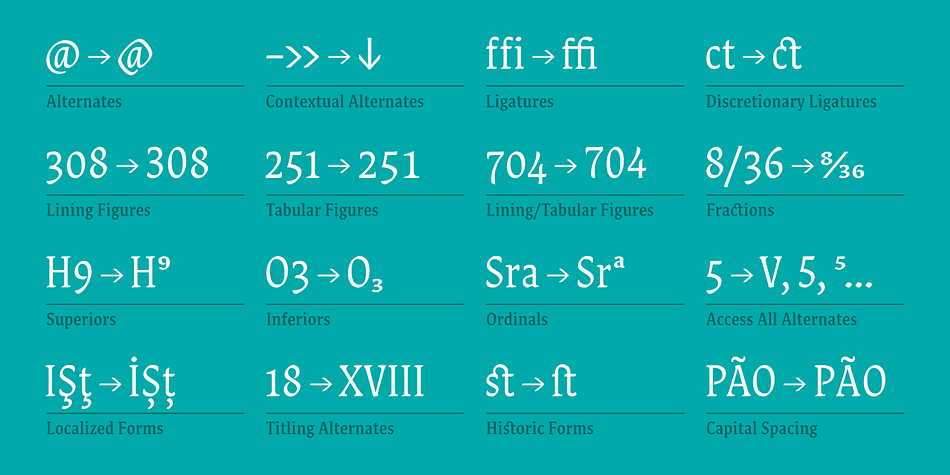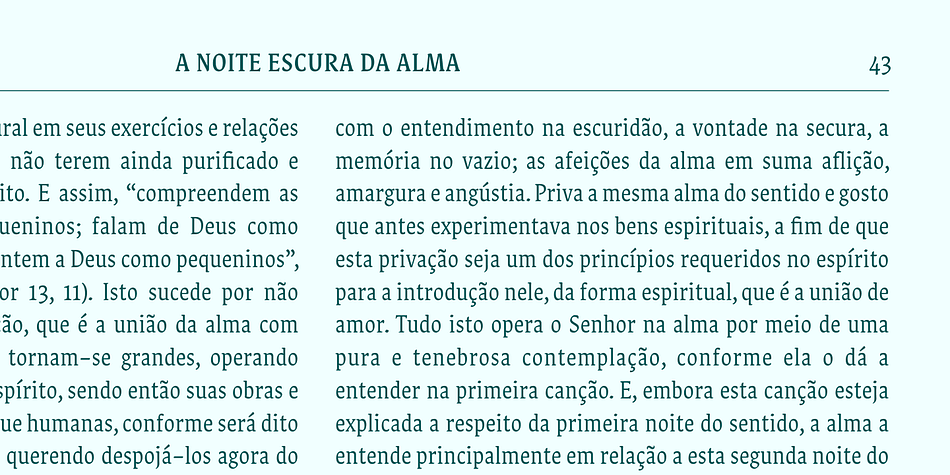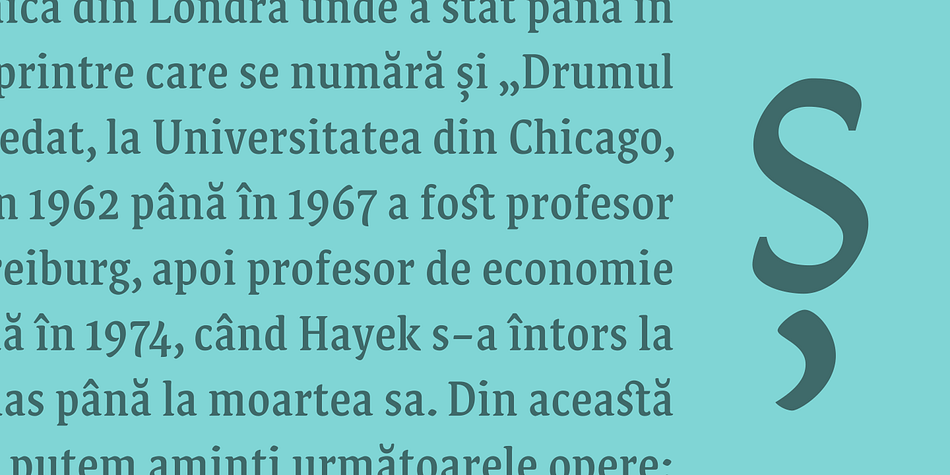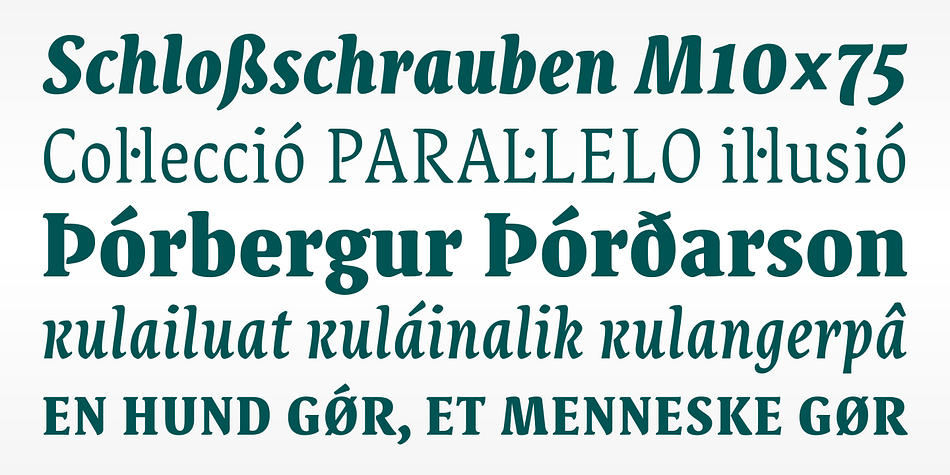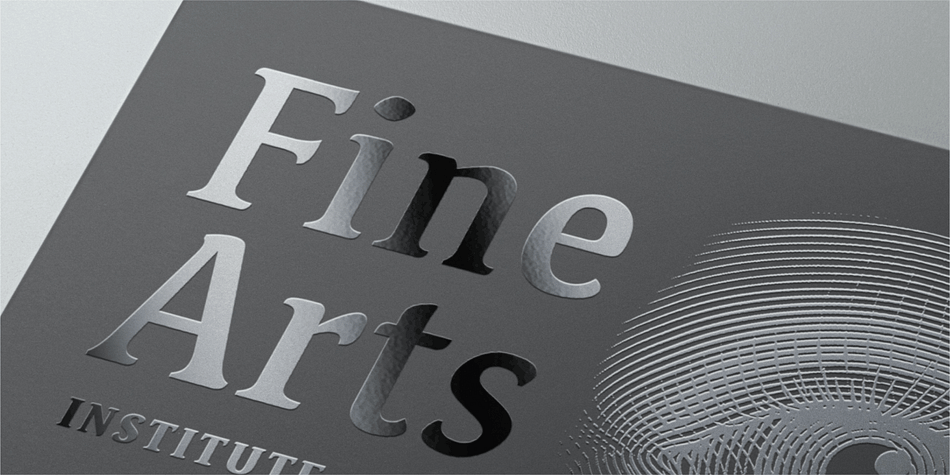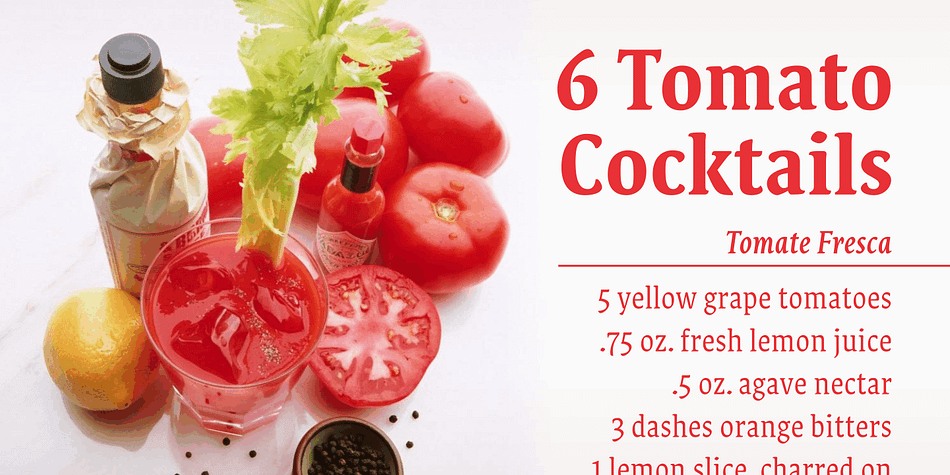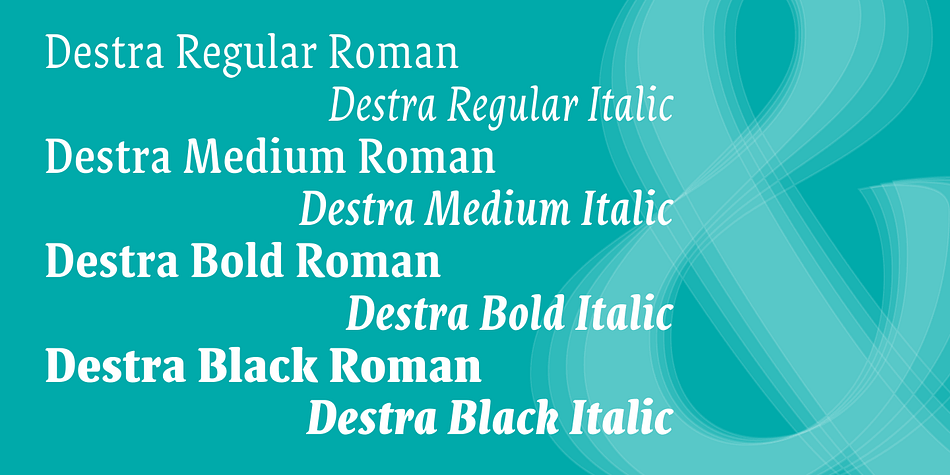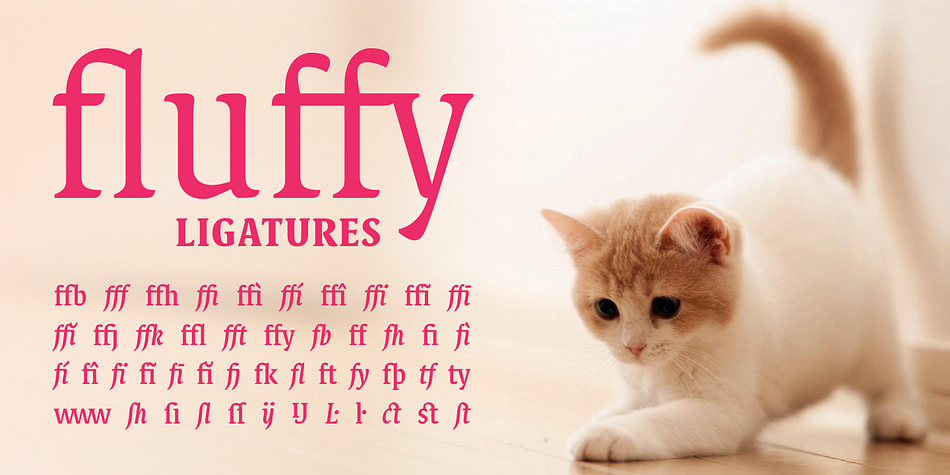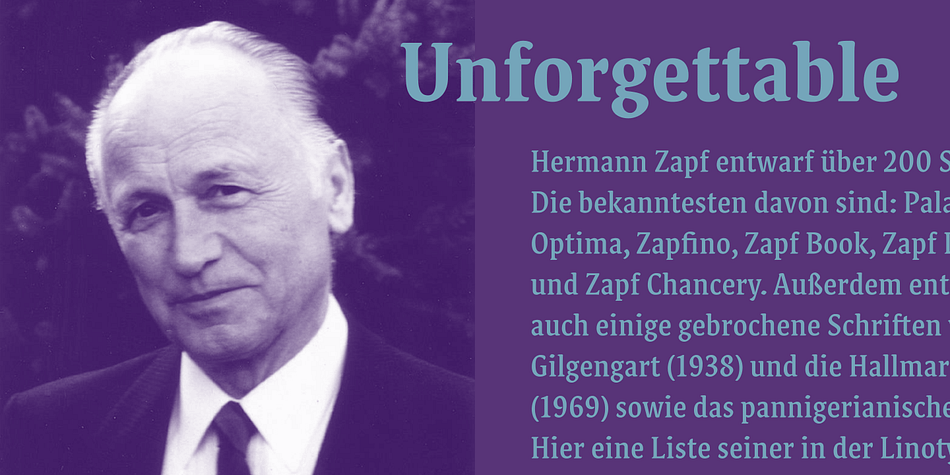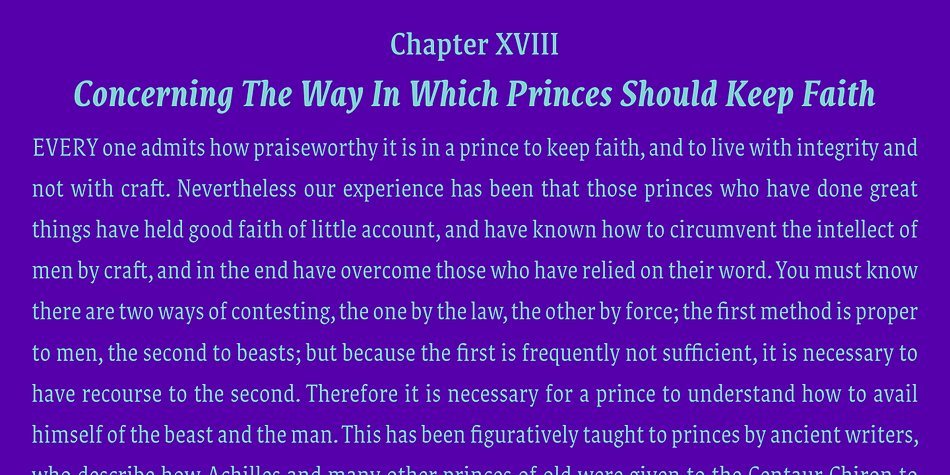
Destra is a serif font family. This typeface has nine styles and was published by IsacoType.
Destra is a contemporary, narrow serif family, suitable to save space and be legible at small sizes. Its shapes are the result of a mix of styles. “Destra” is the Portuguese word for “right hand”.
The font has several OT features - fractions, old style-, lining-, tabular numbers, superiors/inferiors, alternative glyphs, dozens of ligatures (standard + discretionary) and an exclusive feature to convert Arabic to Roman numerals up to 1000 (download the “OT Features Guide” pdf). Moreover, Destra has an impeccable technical finish, with a systematic review of nodes, curves, spacing and internal data, eliminating the possibility of errors when using it.
The family consists of 8 styles, 4 weights - Regular, Medium, Bold and Black, plus their respective italic versions. The fonts are available in OpenType PS/TT and have extended character set to support CE, Baltic, Turkish as well as Western European languages.